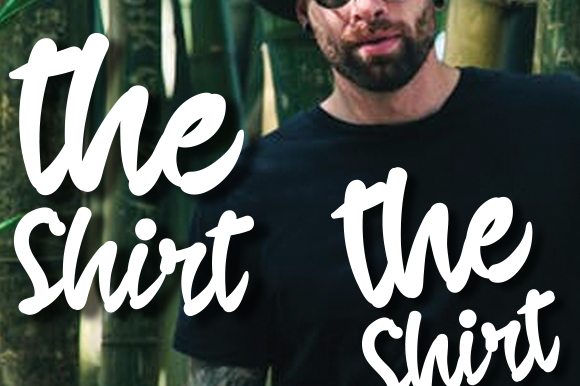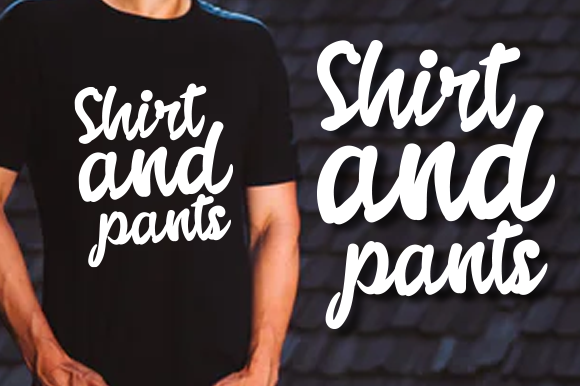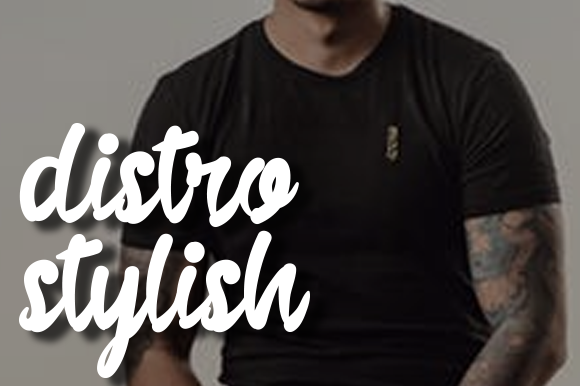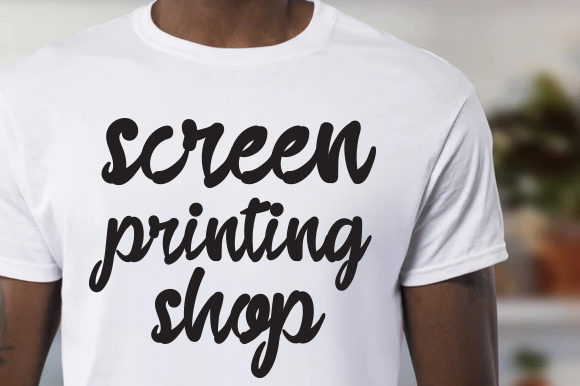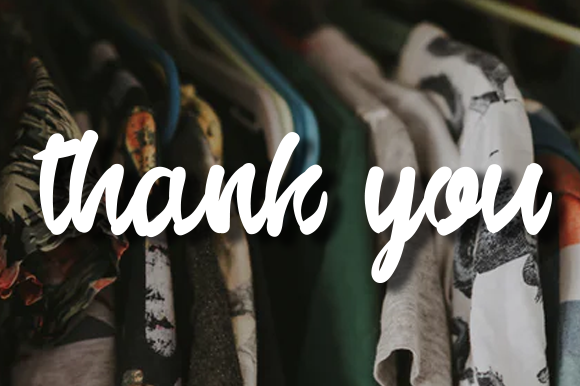
The Shirt Font
The Shirt is a stylish handwritten font, carefully handcrafted to become a true favorite. Use this gorgeous and unique font to bring any DIY project to life!